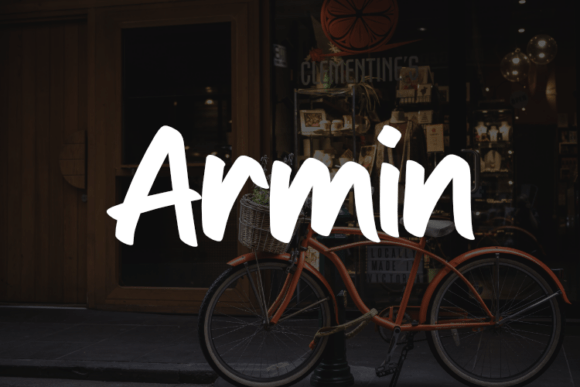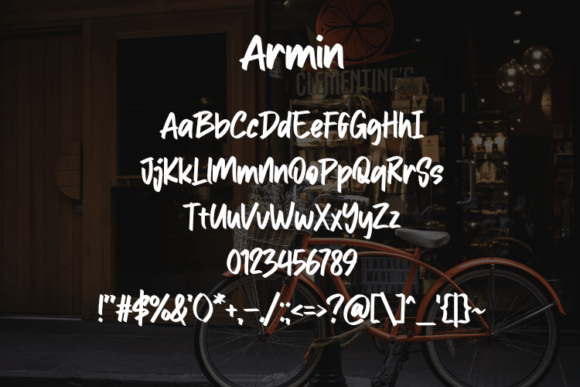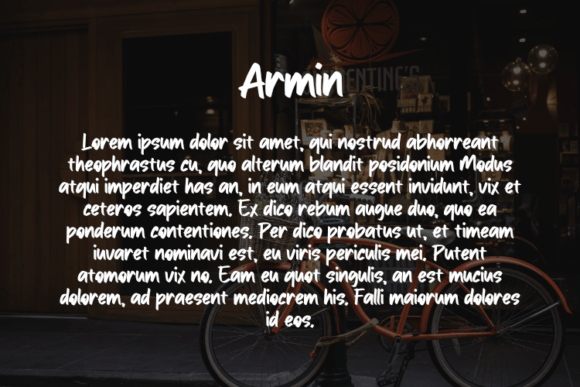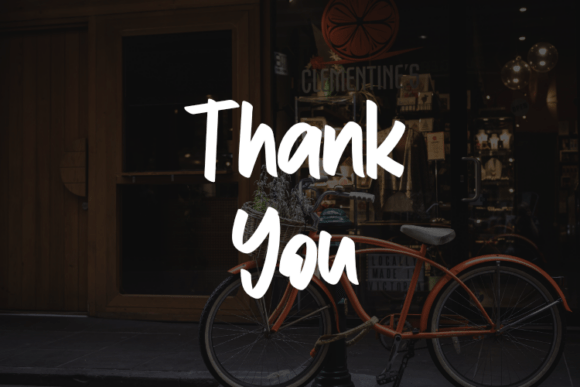
Armin Font: A Playful Handwritten Font for Cricut & DIY Projects
About the Armin Font
Make a bold statement with Armin Font, a powerful and memorable font. Introducing “Armin,” a versatile font that brings a distinctive flair to clothing designs, t-shirt graphics, and various other products. Regardless of your project, Armin effortlessly fits in, making it a universal choice for all types of designs. Thanks to the ‘OTF file’, it’s compatible with every software out there. Armin is characterized by its adaptability, style, and effortless usage, truly a font for the modern designer.
Armin’s bold, slightly geometric forms make it ideal for headlines, logos, and short, impactful text on packaging or posters. It’s less suitable for body copy or extended text blocks due to its strong character and potentially reduced readability at smaller sizes. Avoid using Armin in UI contexts requiring high levels of legibility.
The font’s confident personality pairs well with clean sans-serif fonts like Open Sans or Lato for a modern feel, or with a classic serif like Garamond or Merriweather for a more traditional yet balanced contrast. For a playful touch, consider pairing it with a script font like Great Vibes, but use it sparingly as a secondary element.
Armin projects a modern, confident, and slightly edgy personality, making it a good fit for brands focused on streetwear, technology, or contemporary art. Its versatility, however, extends to other areas where a bold statement is desired.